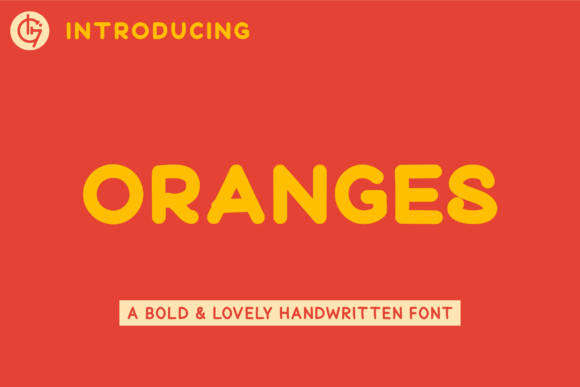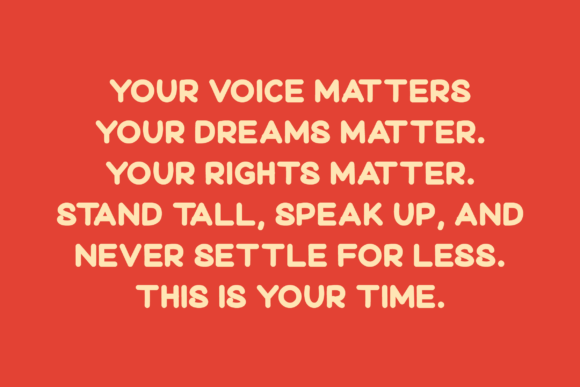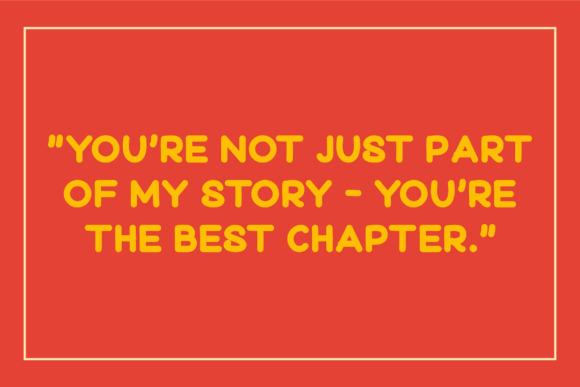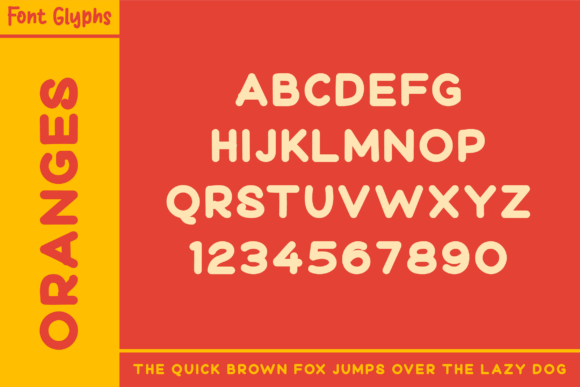
Oranges Font: A Bold All Caps Font for Cricut Crafts & Social Media Design
About the Oranges Font
The Oranges Font offers a perfect balance of form and function for your design needs. Oranges is a quirky all caps font made up of capital letters A-Z, numbers 0-9, accented characters and punctuation. This font is perfect for social media or crafty projects. Simple and smooth perfect for crafting, t-shirts, decals, cards, invitations and so much more.
Oranges’ playful yet simple style makes it ideal for headlines, short taglines, and logos where a quirky, friendly feel is desired. It works exceptionally well on packaging for artisan goods, children’s products, or brands with a youthful energy. Avoid using Oranges for large amounts of body text; its all-caps nature and unique letterforms make it less legible for extended reading.
Consider pairing Oranges with a clean sans-serif like Open Sans for body copy to balance its bold personality. For a more sophisticated look, a classic serif like Garamond could create interesting contrast. Alternatively, a geometric sans-serif such as Futura could enhance Oranges’ modern feel, creating a stylishly balanced aesthetic.
Oranges projects a friendly, approachable, and slightly whimsical personality. It’s best suited for brands that want to convey approachability and creativity without sacrificing legibility in key areas.